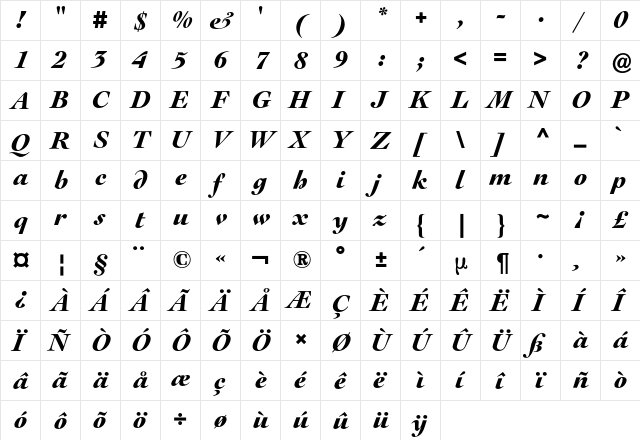
Le Cochin BQ Regular Font Preview
Le Cochin BQ Regular
Le Cochin BQ Regular Font Details
Design Context for Le Cochin BQ Typeface
Le Cochin BQ is a composed and adaptable typeface that performs quietly and consistently across a wide range of design contexts.